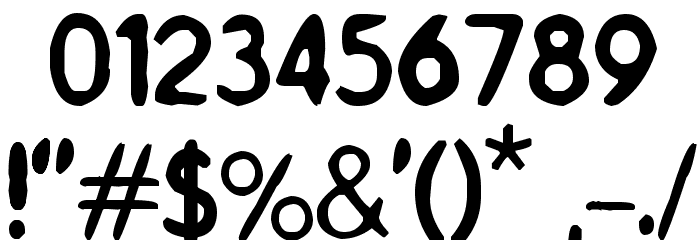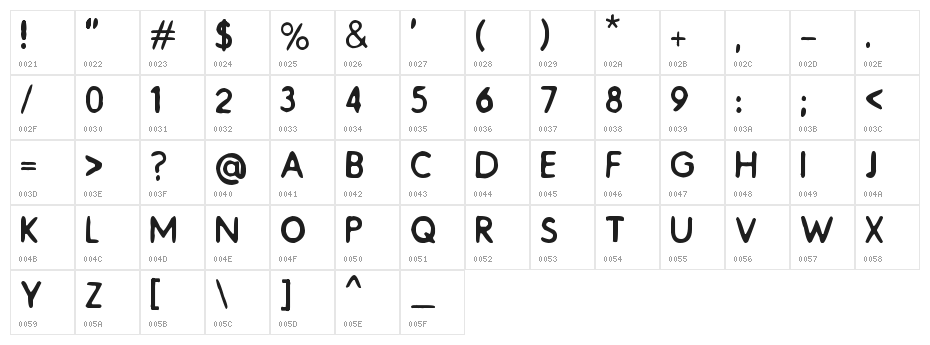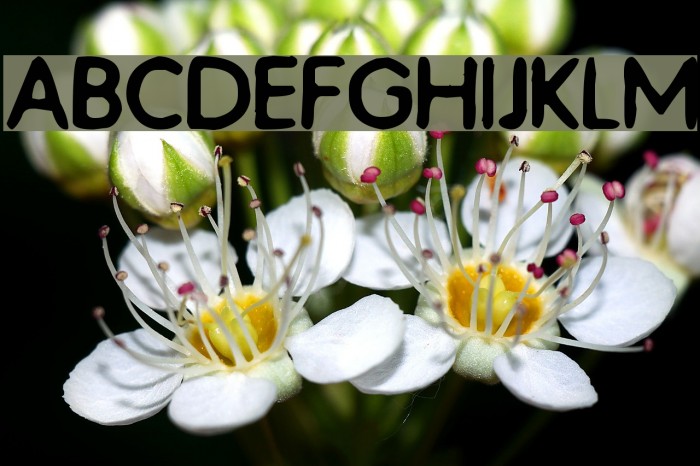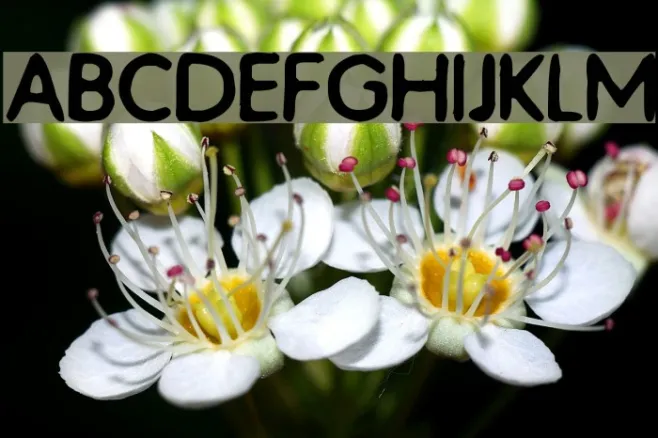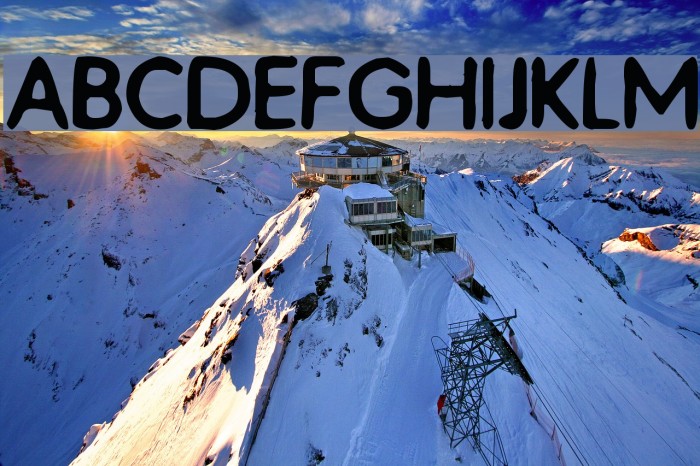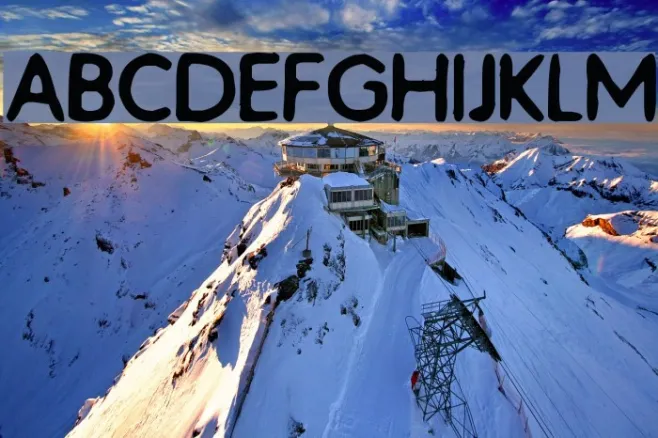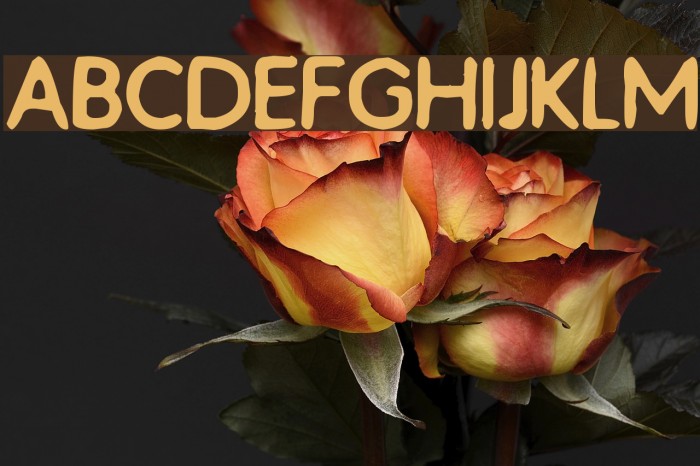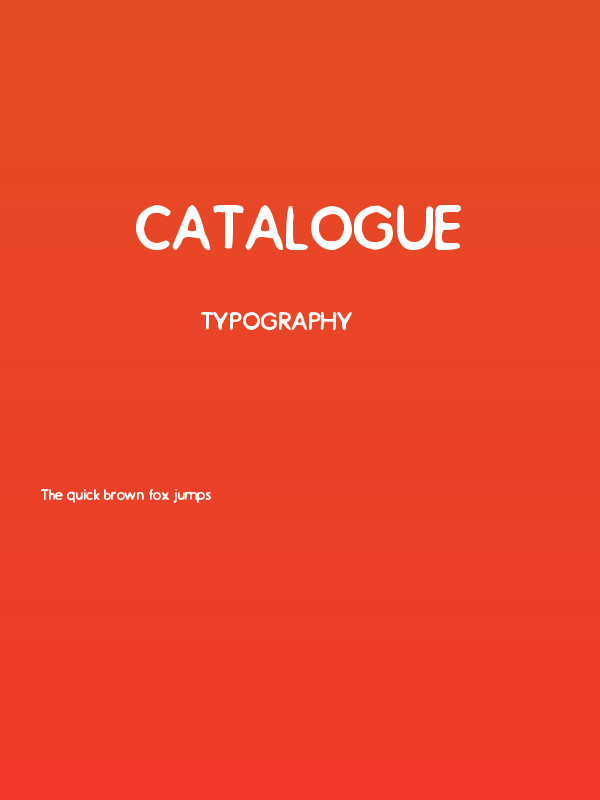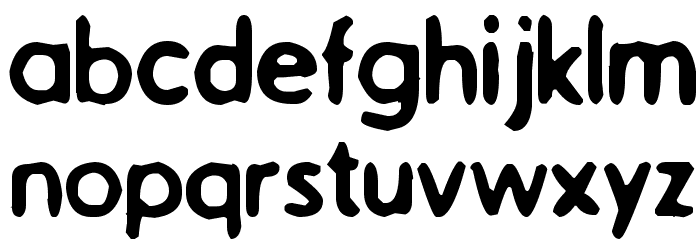
Catalogue Font
Catalogue Description
This font features a playful and bold style with rounded edges and a hand-drawn appearance. The characters are thick and slightly irregular, giving them a casual and friendly look. The uppercase and lowercase letters maintain a consistent weight, while the numbers and special characters blend seamlessly with the overall design. The font's organic feel makes it suitable for projects that require a personal touch or a fun, informal vibe.
| Proposed Projects | Ideal for children's books, playful branding, casual invitations, and creative posters. |